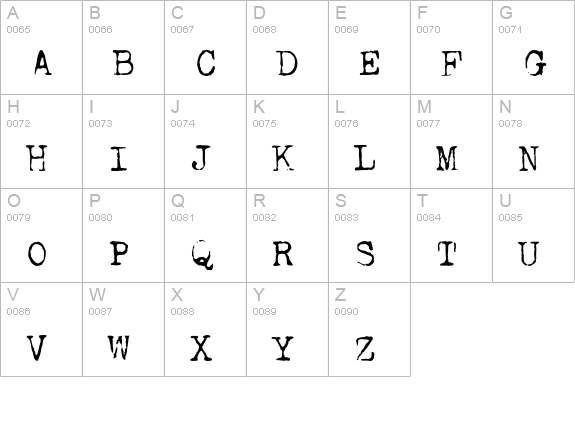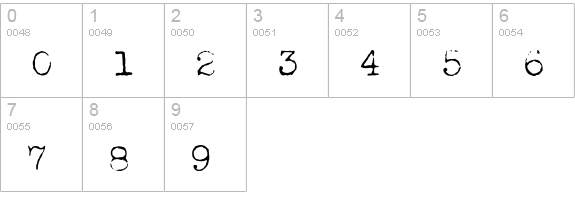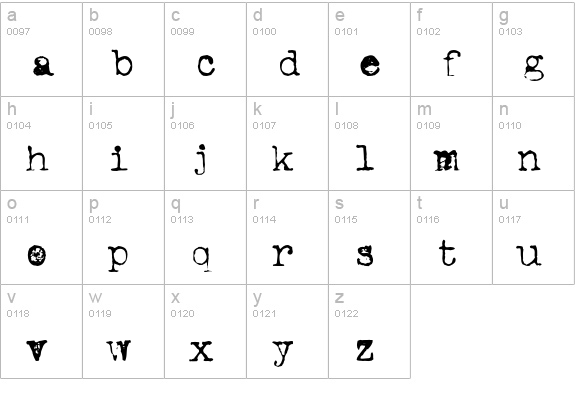
VintageTypewriterOne Font Details
VintageTypewriterOne is a stunningly authentic typewriter font that harkens back to the golden age of mechanical writing machines. With its classic design and nostalgic charm, this font brings a touch of vintage elegance to any project or design. Each character in VintageTypewriterOne is meticulously crafted to capture the essence of a traditional typewriter, complete with the uneven lines and imperfect curves that give it a truly authentic feel. The aged appearance of the letters adds a sense of history and character, making it perfect for creating vintage-inspired designs, retro logos, or adding a touch of old-world charm to any creative endeavor. One of the best things about VintageTypewriterOne is that it is available for free download at FontsMarket.com. This means that you can add this stunning font to your collection without spending a dime. Whether you're a graphic designer, a typewriter enthusiast, or simply someone who appreciates the beauty of vintage aesthetics, VintageTypewriterOne is a must-have font that will elevate your designs to new heights. So why wait? Head over to FontsMarket.com and grab your free copy of VintageTypewriterOne today. With its timeless appeal and versatile usage, this font is sure to become a valuable asset in your design arsenal. Don't miss out on the opportunity to infuse your creations with the nostalgic charm of a bygone era. Download VintageTypewriterOne now and let your creativity soar.